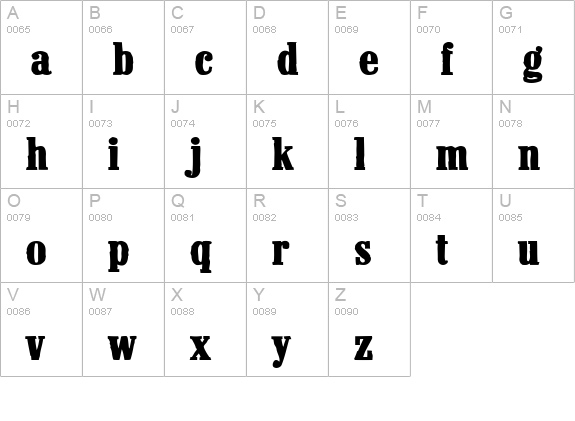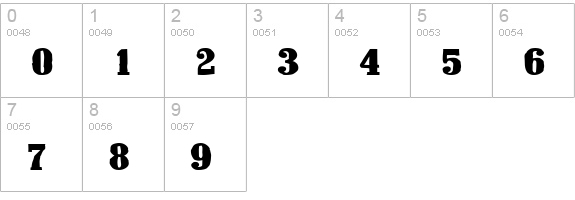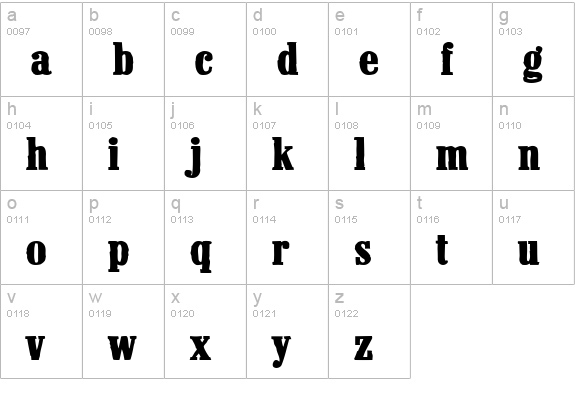
Rodeoboy Font Details
Introducing Rodeoboy font - a dynamic and playful display typeface that exudes a sense of fun and adventure. With its bold and energetic letterforms, Rodeoboy is perfect for adding a touch of excitement to your design projects. Whether you're working on posters, logos, or branding materials, this versatile font is sure to make a statement. Rodeoboy font is free to download and use, offering you the opportunity to unleash your creativity without any additional cost. Simply visit FontsMarket.com to access this unique typeface and start incorporating its lively personality into your designs. Stand out from the crowd and infuse your work with a sense of whimsy and flair with Rodeoboy font.